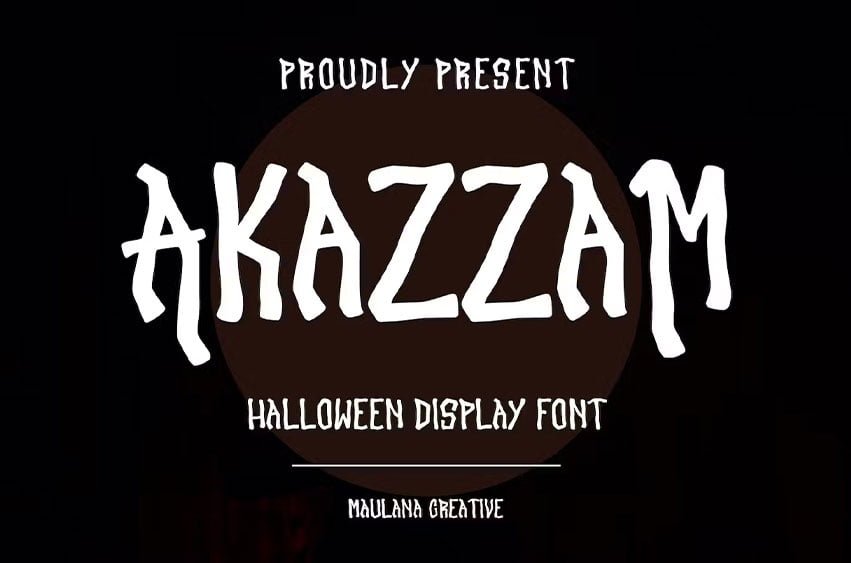
Akazzam Font is a Futuristic decorative display font. Bold stroke, fun character with a bit of ligatures and alternates. To give you an extra creative work. Akazzam font support multilingual more than 100+ language. This font is good for logo design, Social media, Movie Titles, Books Titles, a short text even a long text letter and good for your secondary text font with script or serif. Make a stunning work with Akazzam font.
Akazzam Font Preview